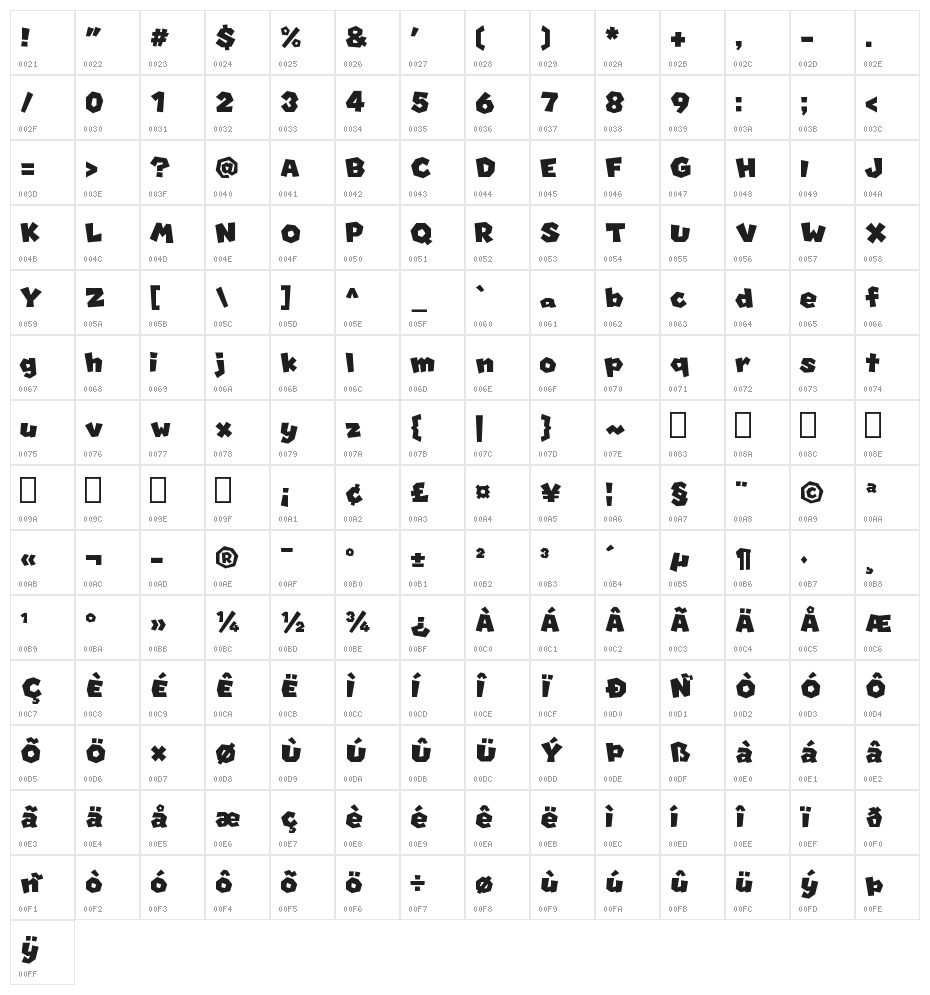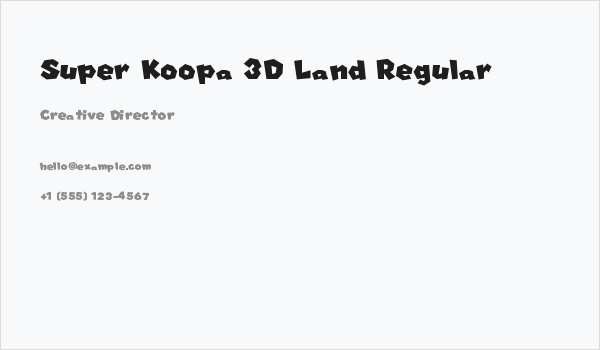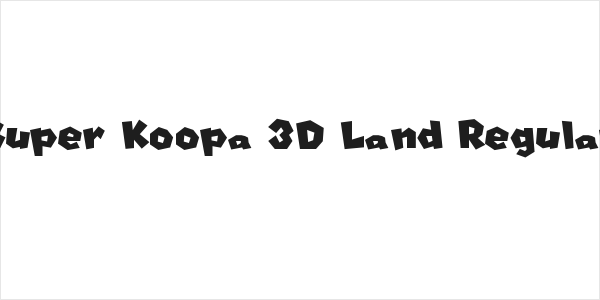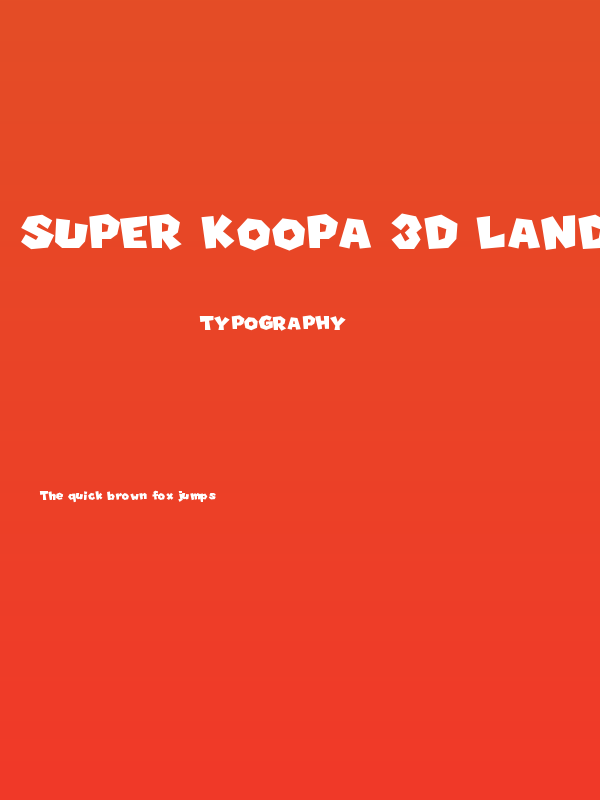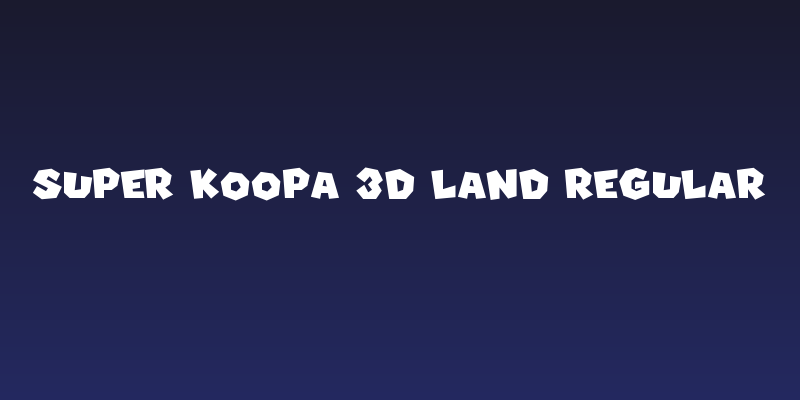
Super Koopa 3D Land Regular Font
Super Koopa 3D Land Regular Description
This font features a playful and bold style, characterized by its chunky, three-dimensional appearance. The letters have a blocky, geometric form with irregular edges, giving them a dynamic and energetic feel. The uppercase and lowercase letters maintain a consistent style, with a slight tilt that adds to the whimsical nature of the design. Numbers and special characters follow the same aesthetic, ensuring a cohesive look across all elements. The font's unique design makes it stand out, suitable for projects that require a fun and engaging visual impact.
| Overall Style | Playful, Energetic |
| Proposed Projects | Ideal for video game titles, children's book covers, playful branding, and posters. |